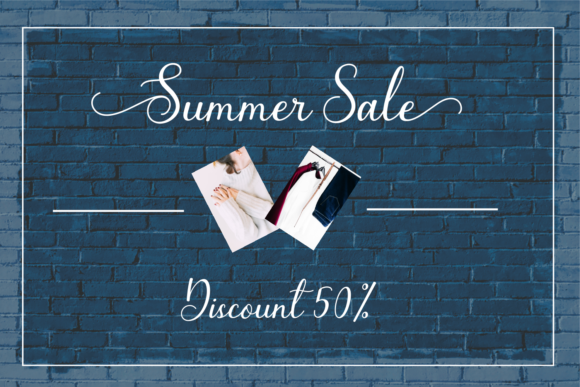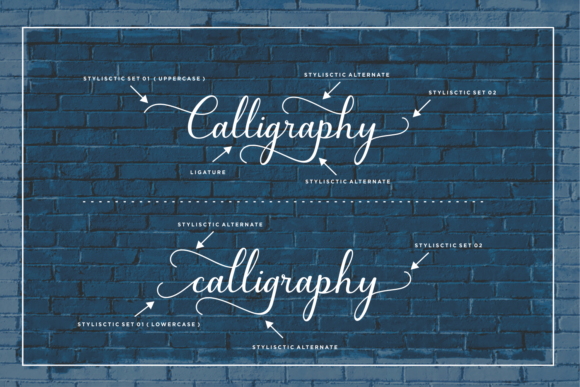
Bluebell Font
db-ku.com - Script & Handwritten -- Bluebell is a new, modern & fresh calligraphy font. Bluebell looks natural, elegant and is perfect for any awesome project such as: logos & branding, invitations, stationery, wedding designs, social media posts, advertisements, product packaging, product designs, labels, photography, watermarks, special events and much more!